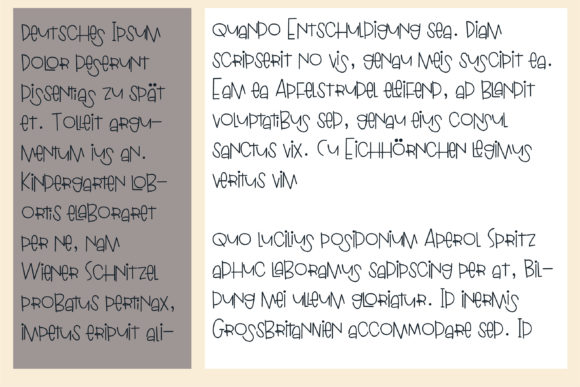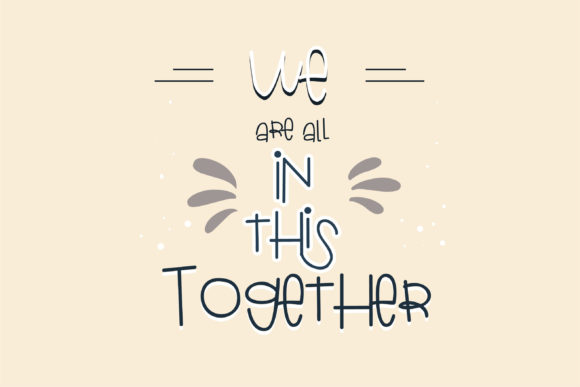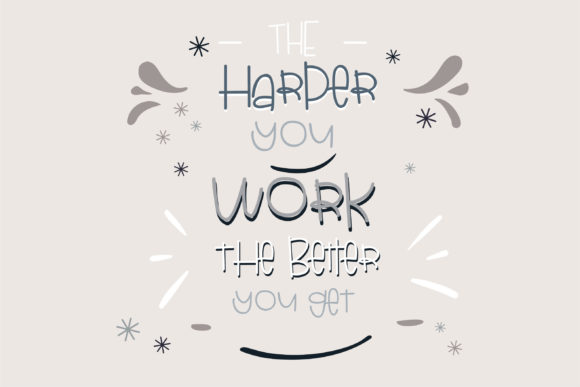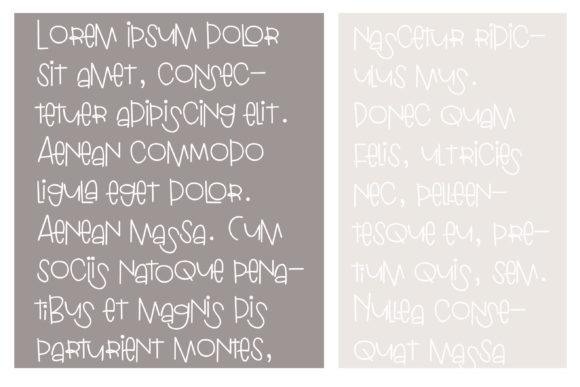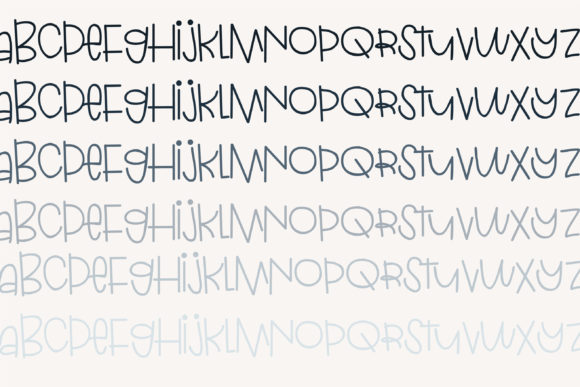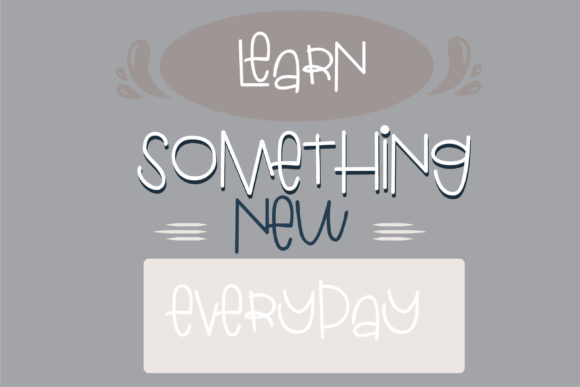
ZP Moonshine Font
About ZP Moonshine Font
This cute handwritten font has a whimsical look and feel, and some wonderful ligatures that keep your projects fresh.
The bold version is included.